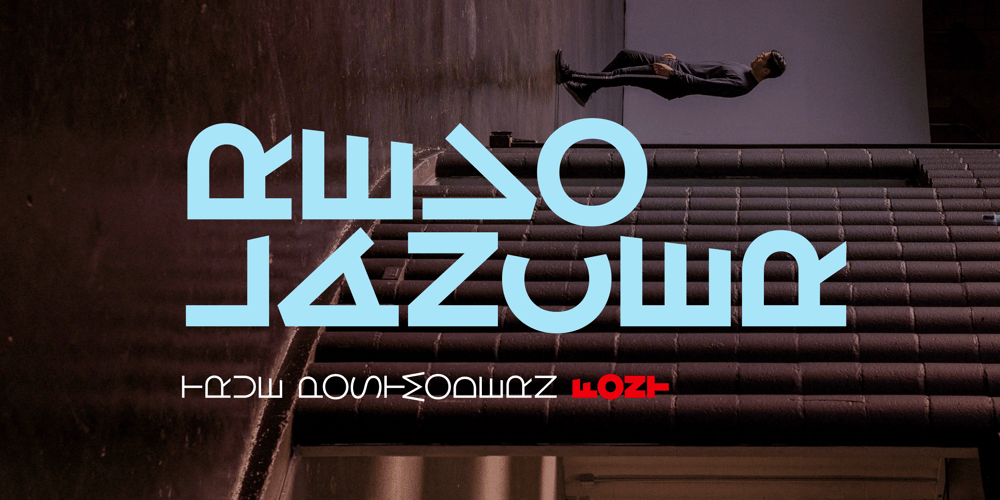
Revolancer
Revolancer font
Revolancer Font Family was designed by Alexey Popov and published by Popskraft. Revolancer contains 9 styles and family package options. Are you ready? Ready to touch a completely unique font? The true postmodern typeface in history. Ready for a design revolution? This is the Revolancer font. This font will give you freedom. The freedom to be unique, not like everyone else. These are not just ordinary rotated letters. Each character in Revolancer font knows its place, and it is impossible to achieve such a smooth and organic flow of words using a regular font.